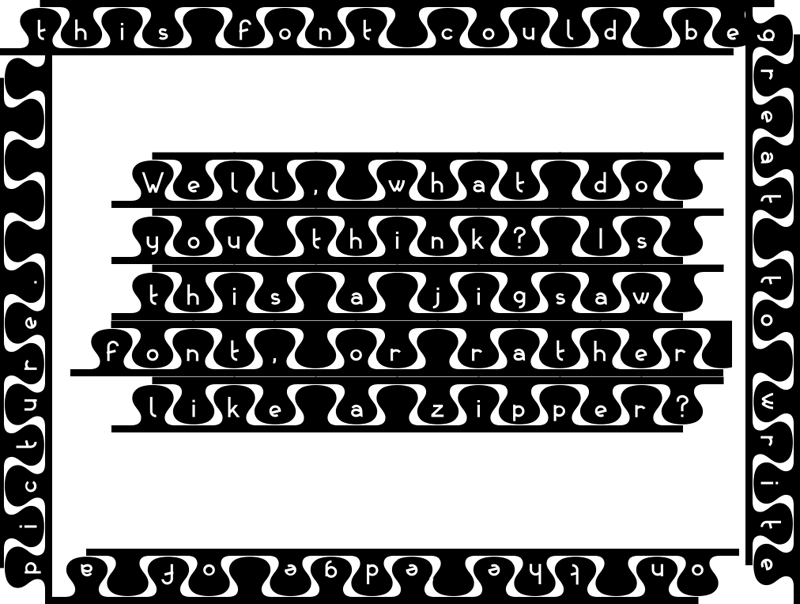
Font name: | Unzip Me |
Author: | Bálint Erdősi |
Note by Bálint Erdősi | |
This font is more like an experiment: I was looking for a font, which looked like a zip fastener. Then I realized, that there are no fonts, where the letters are alternatingly on the top or on the bottom teeth of the pattern, so I decided to create one. As I regard this as an experiment or tech demo, therefore I didn't have very high standards regarding the shapes of the letters. Also note, that this font is _very_ demanding regarding the font engine, a lot of software won't work with it properly. (e.g.GIMP does, but MS Office and Paint doesn't… However the font displays properly in the Windows font preview.) Enjoy using it! |